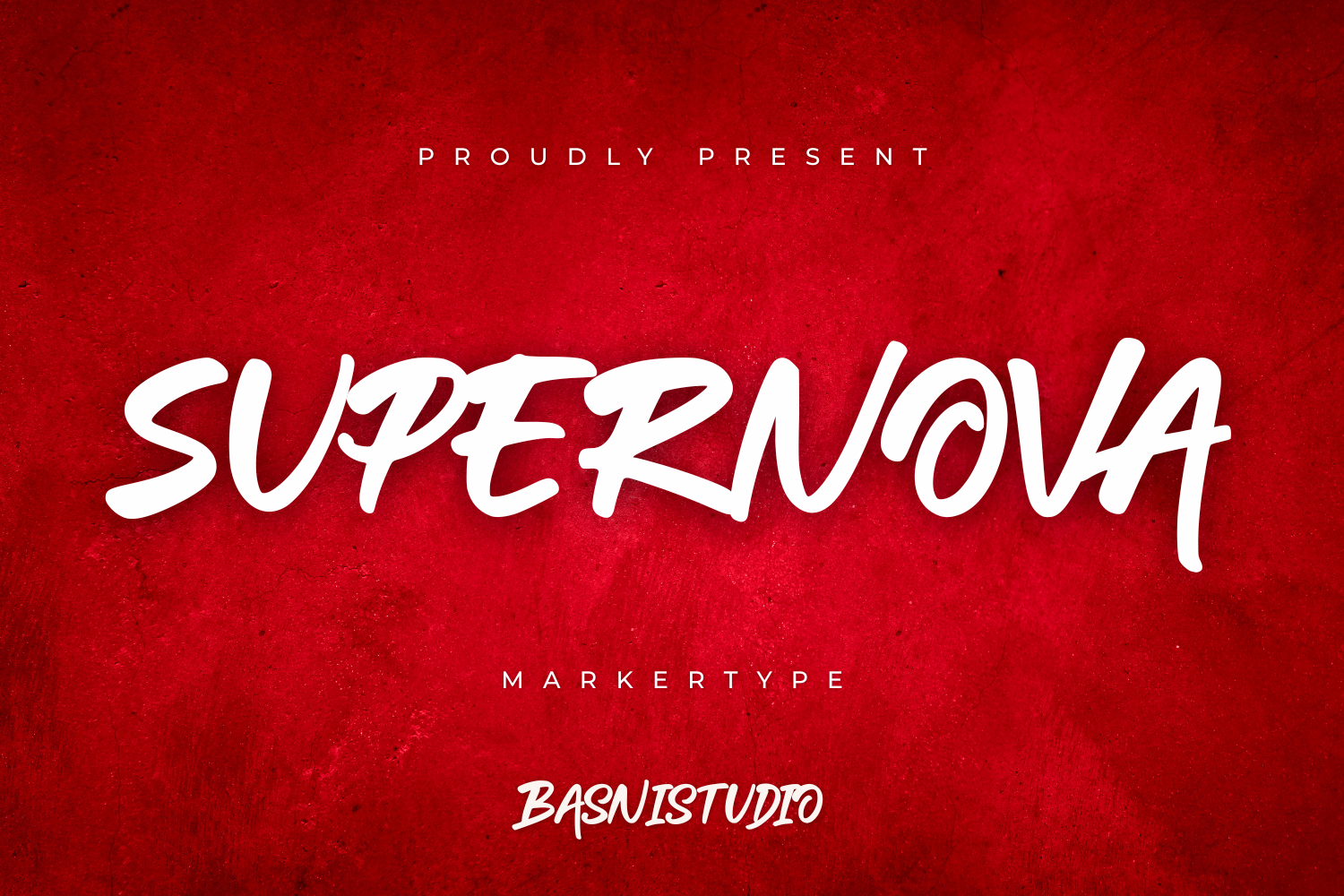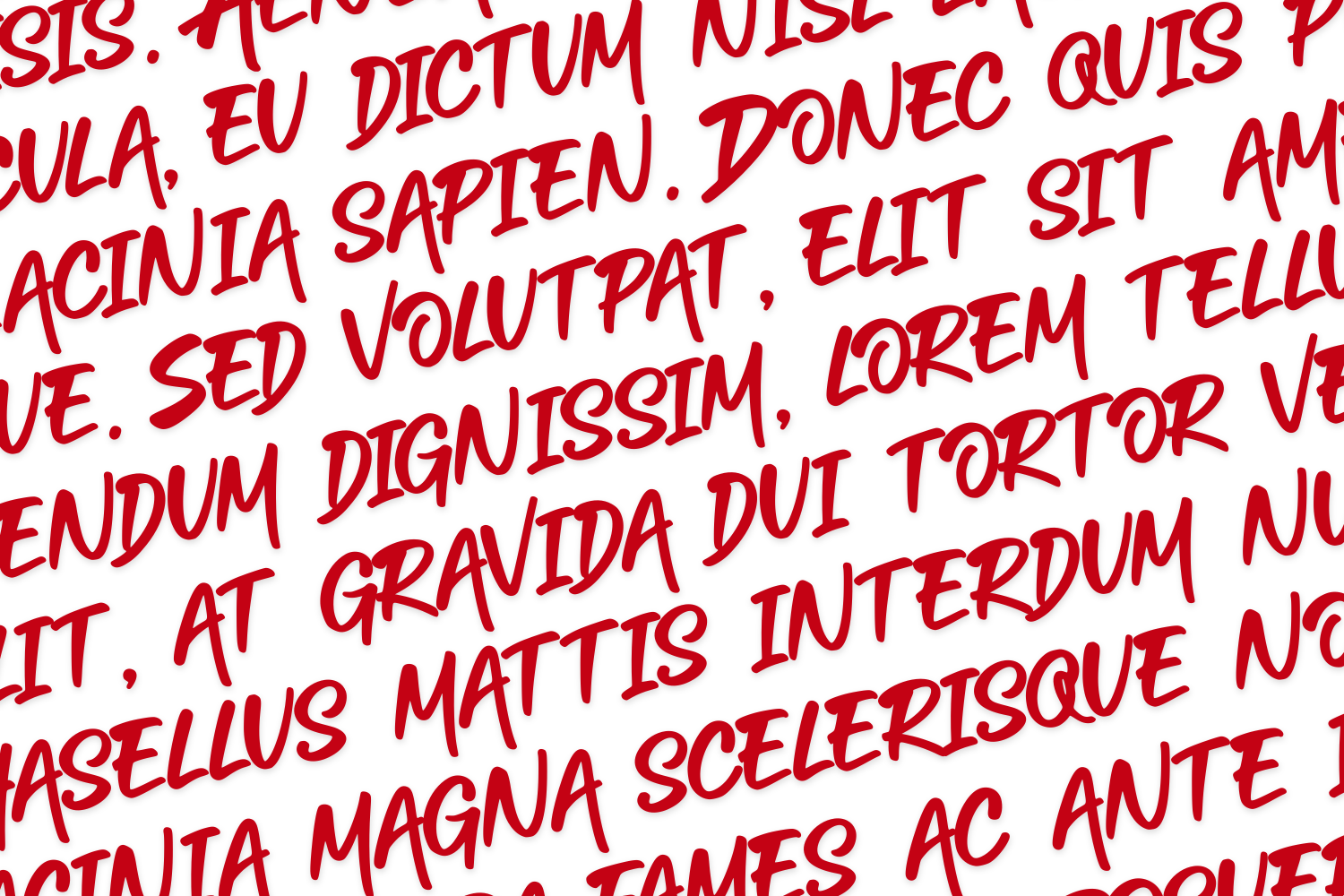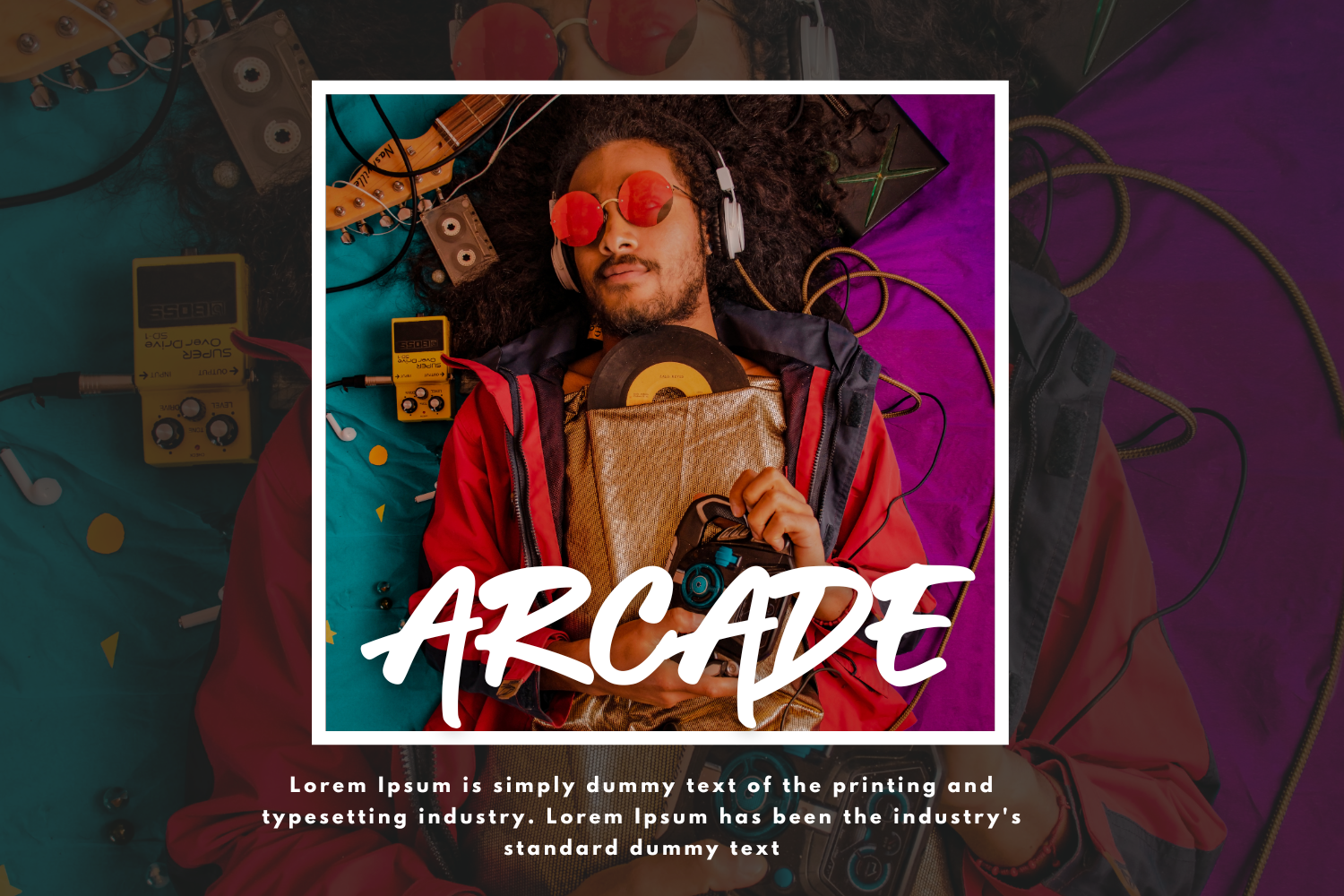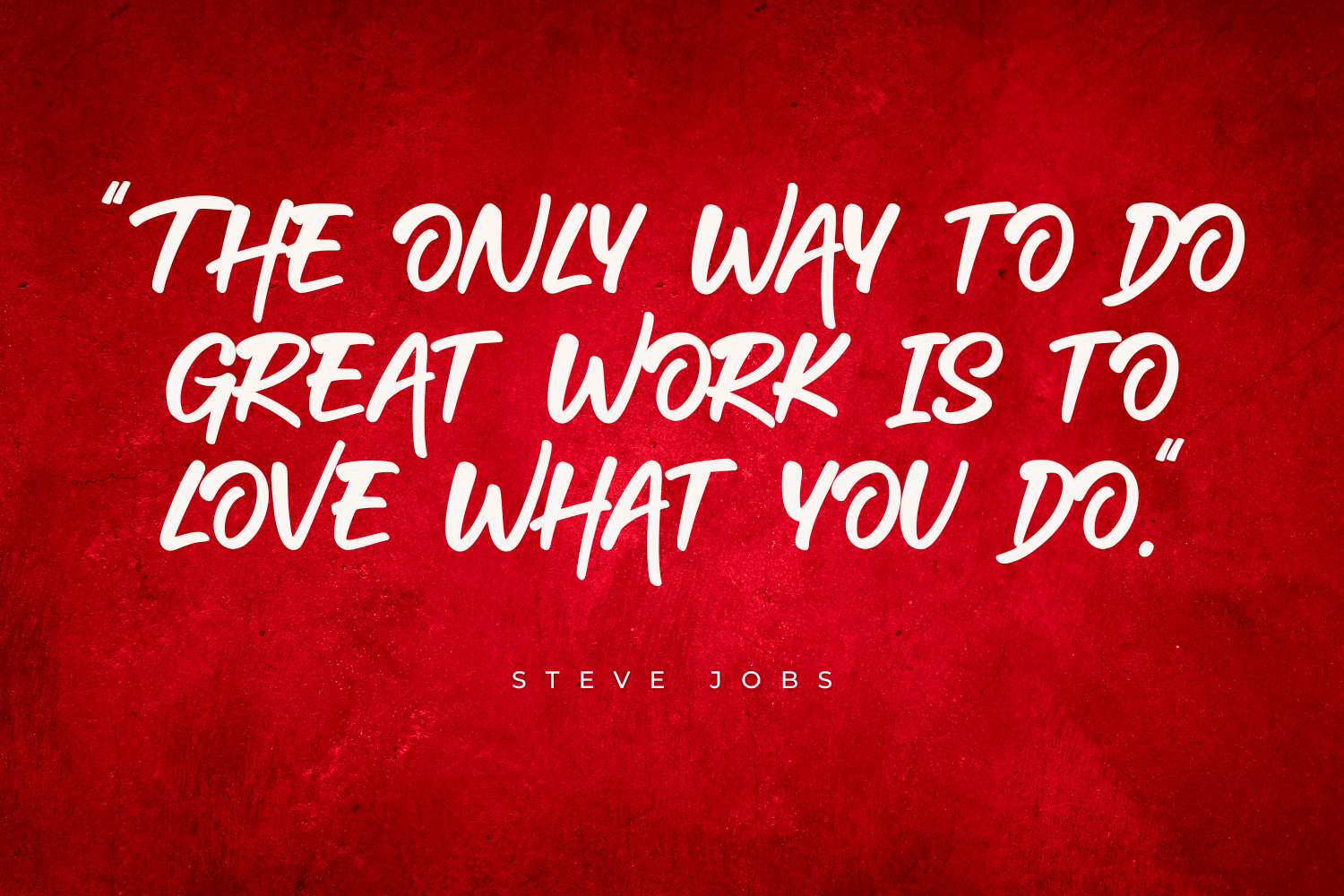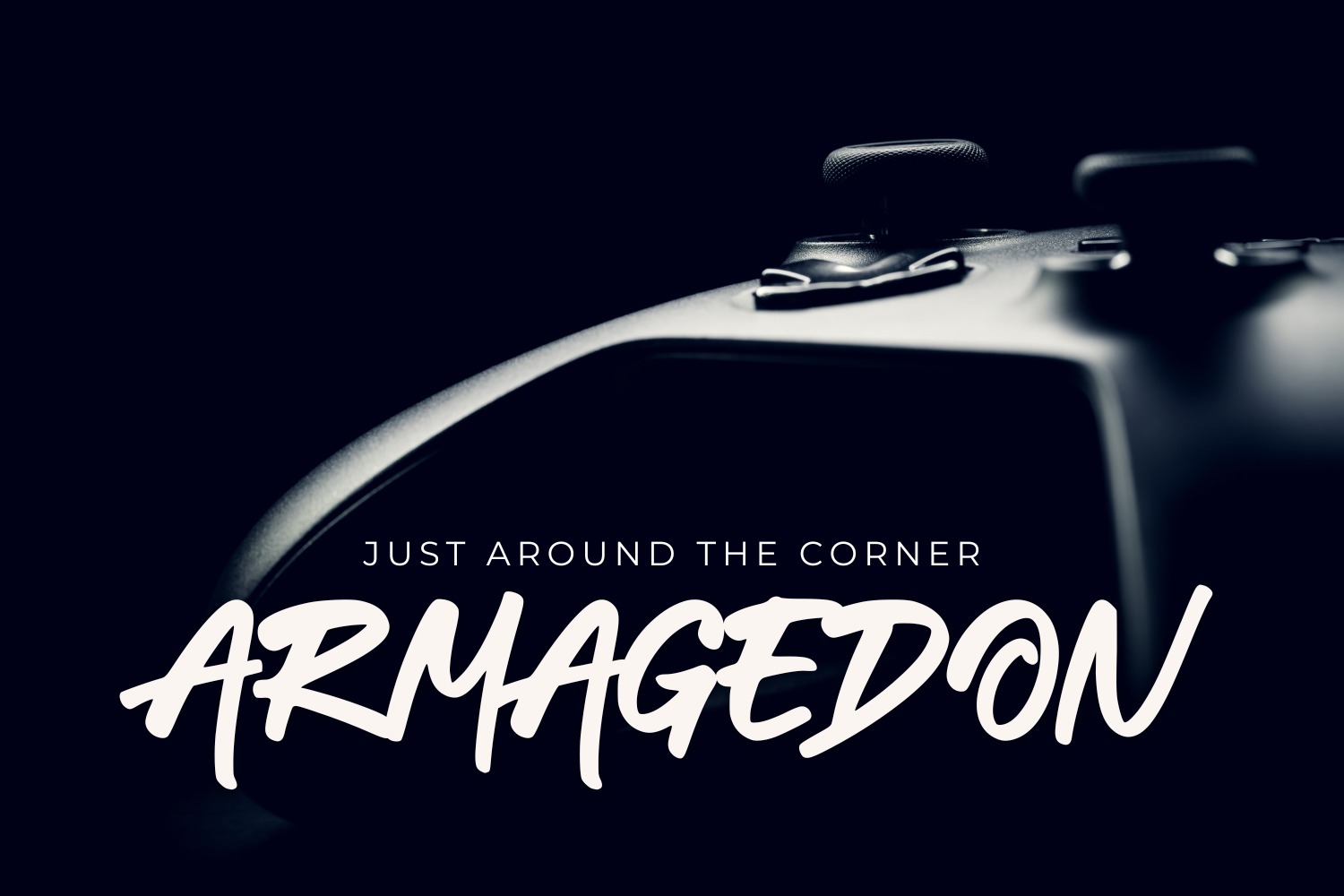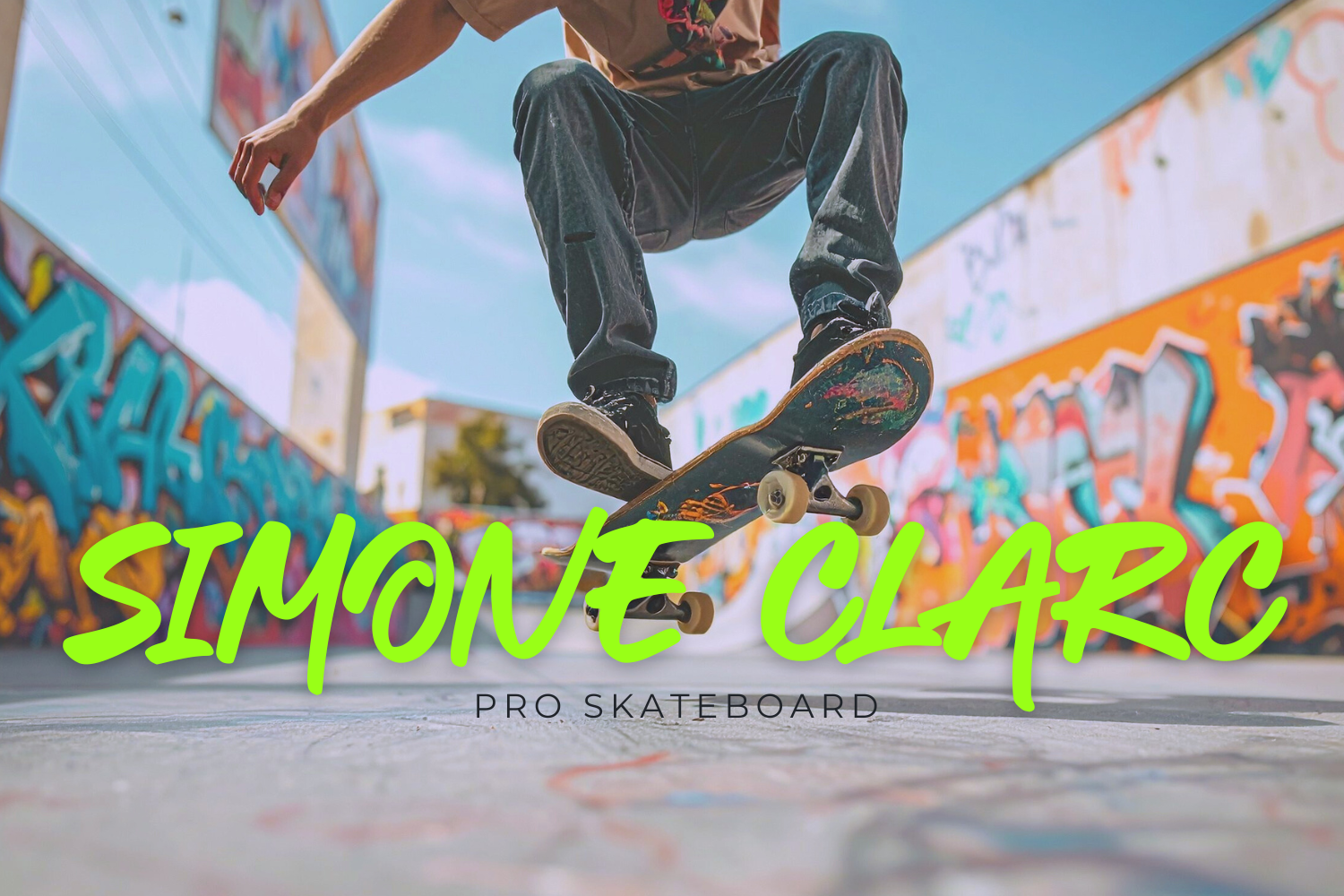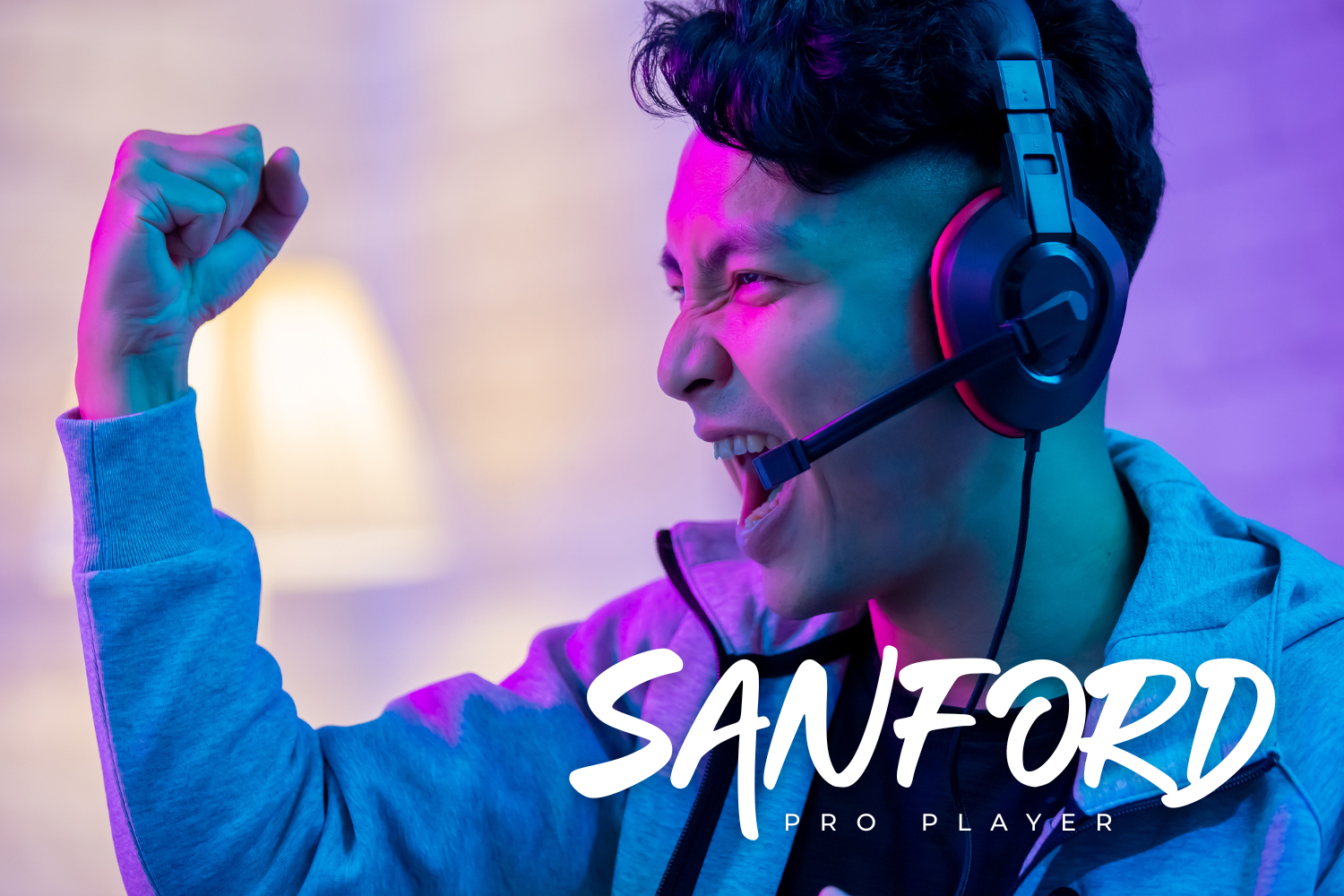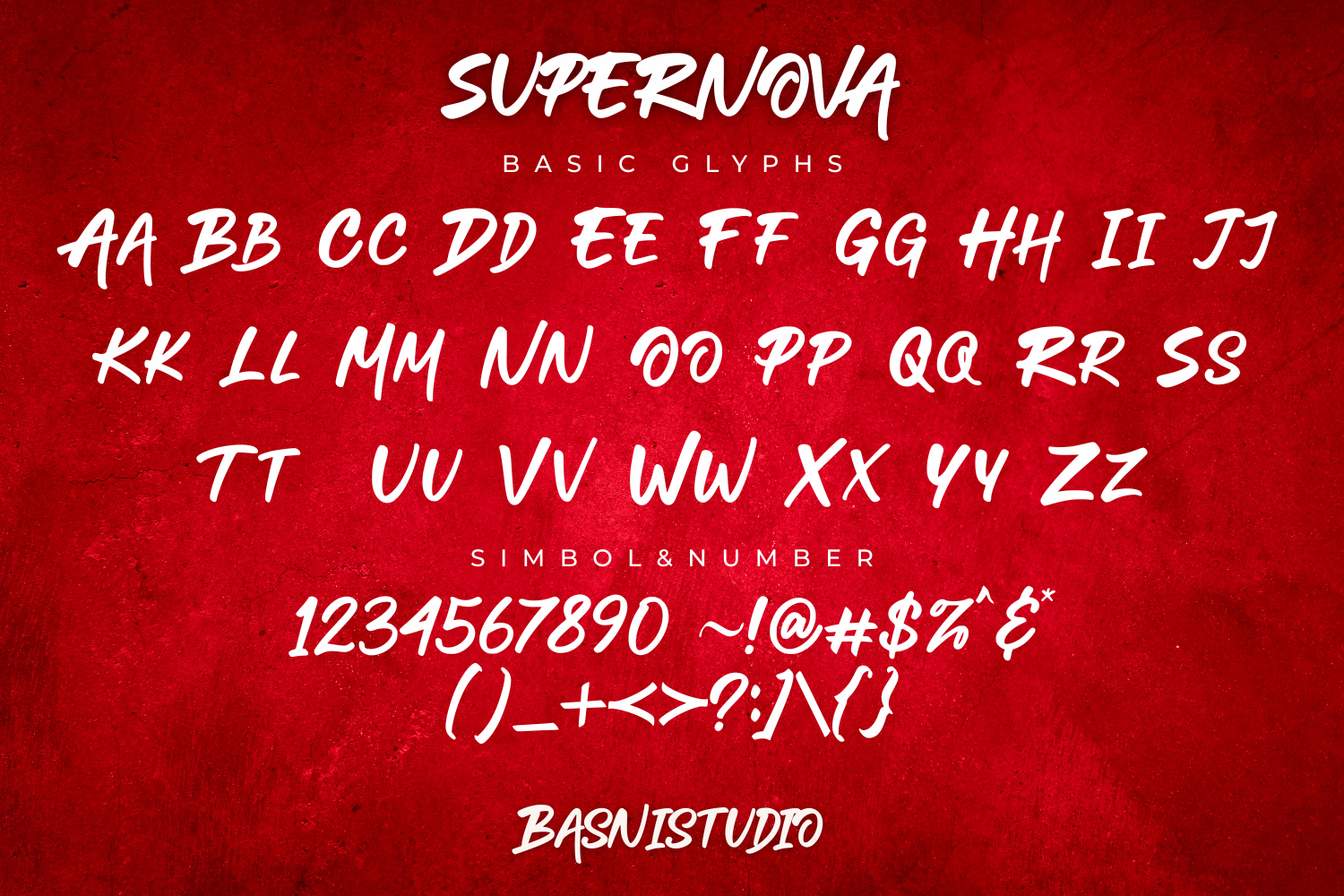
The Perfect Bold Handwritten for Your Designs
Introducing Supernova a Markertype that adds a Natural, Bold & Strong touch to everything from branding and social media to invitations and packaging.
Strong & Sporty – Perfect for logos, quotes, and more
Bold feel – Created with real pen strokes for a natural look
Whether you’re building a powerful brand identity or crafting a standout logo,
Supernova a Marker type gives you the creative edge you need.
• Uppercase & lowercase letters